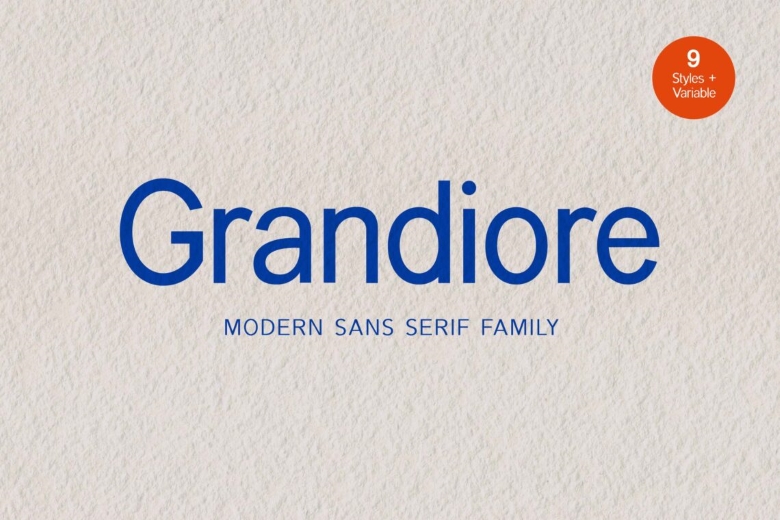
Grandiore Font Family
Grandiore Font is a Modern Sans Serif Font. Even the contemporary display font looks and feels beautiful classy, elegant and stylish. This font is designed to be used in a broad range of person and commercial projects including signature, stationery, logo, wedding, typography quotes, magazine or book covers, website headers, branding and many others.
Furthermore, the branding or the editorial design on fonts section can also be characterized as fashion and they are also have the elements of both male and female typical.
Grandiore Sans Serif Font Family